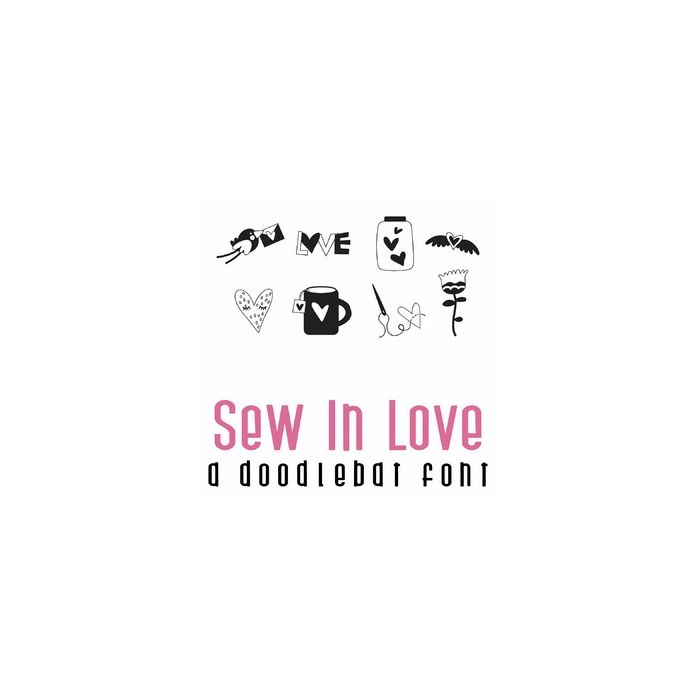
Sew In Love Doodlebat Font
This fun doodlebat font features 26 adorable Valentines perfect for cards, crafts, gifts, scrapbook pages, planner stickers, and more!